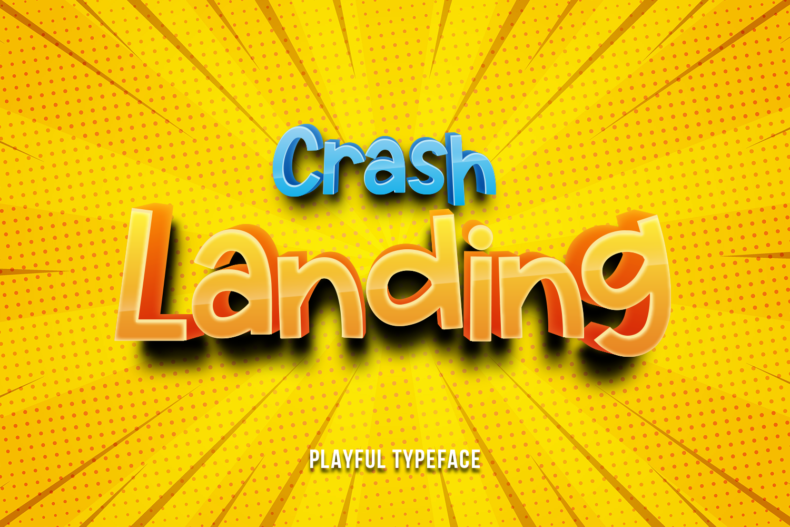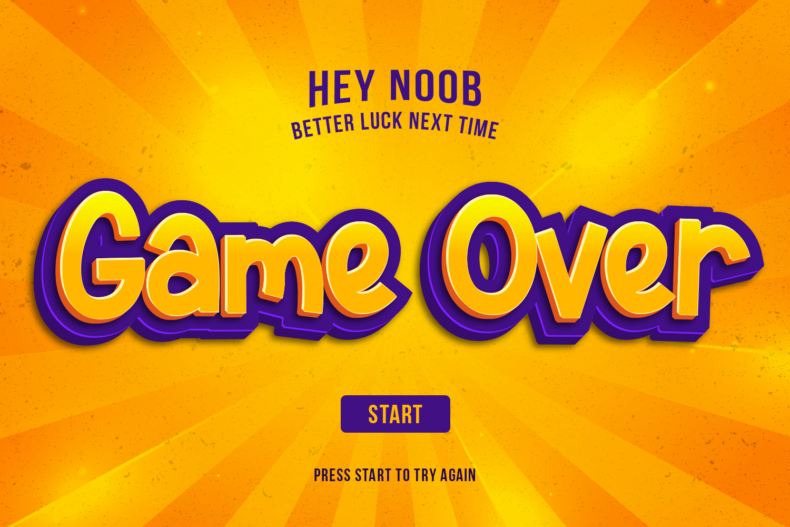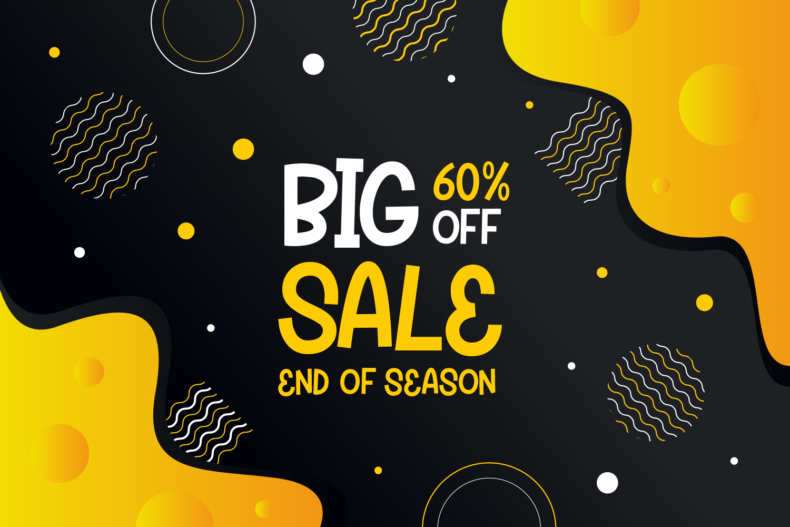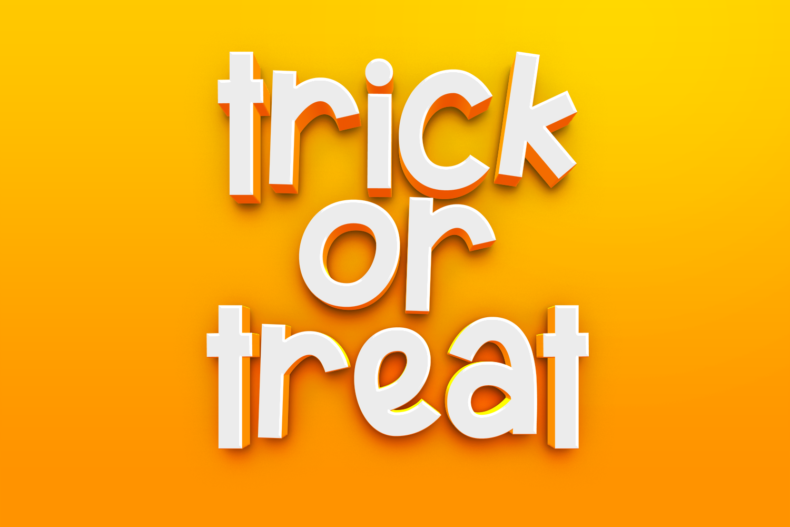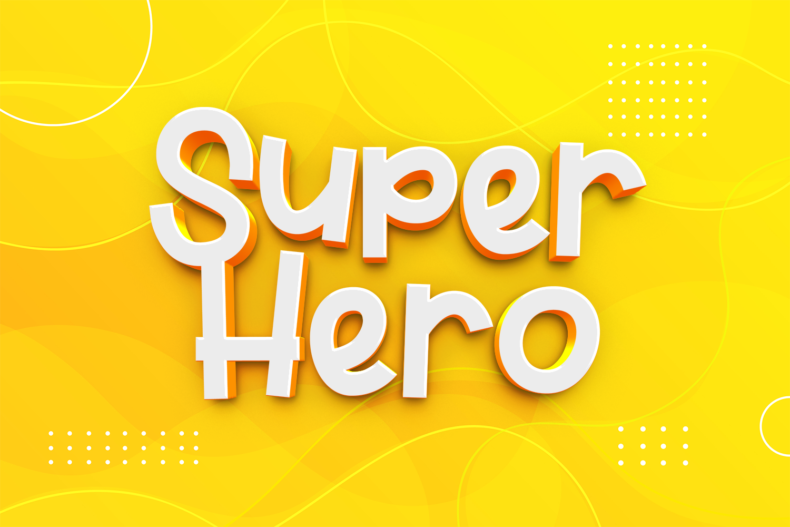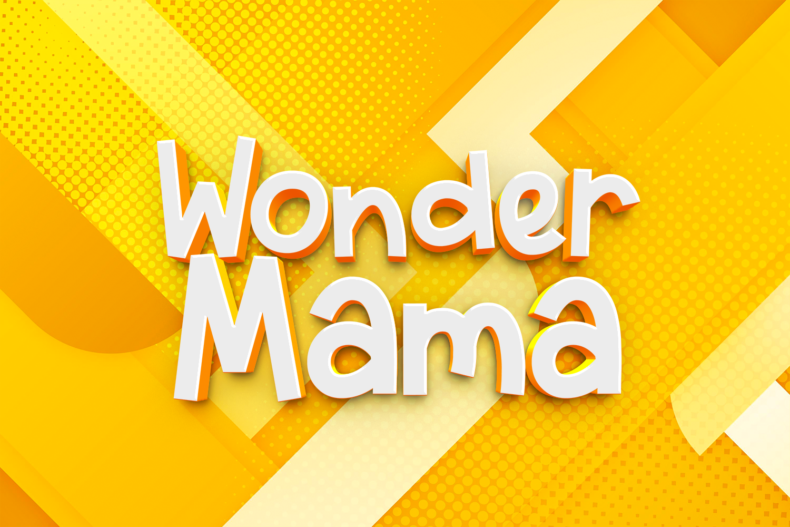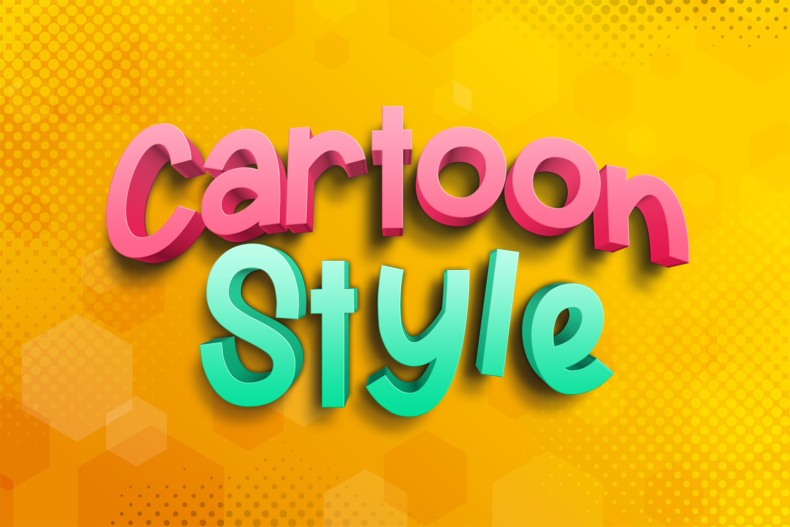
Crash Landing is a playful sans serif font made for casual, characterful typography. It is a natural choice to explore for games, cartoons, comics, and children’s projects.
Give a game title, comic heading, or activity-book cover a friendly voice with Crash Landing. Its informal design suits short messages where the lettering should contribute to the fun of the artwork.
Try it alongside illustrations, bright color, or a simple background. Preview the actual title or phrase you plan to use, then choose a quieter typeface for instructions and other longer passages.